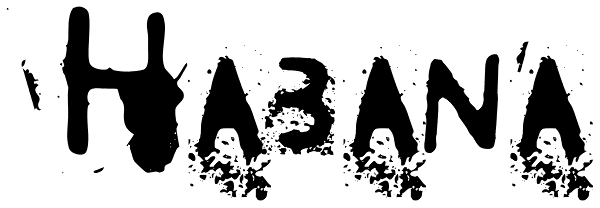
Habana
This font opens a new era of typewriting and type design. At first sight, the font seems creepy, but it has a deep connection with some urban motives in its tune.
Habana Font